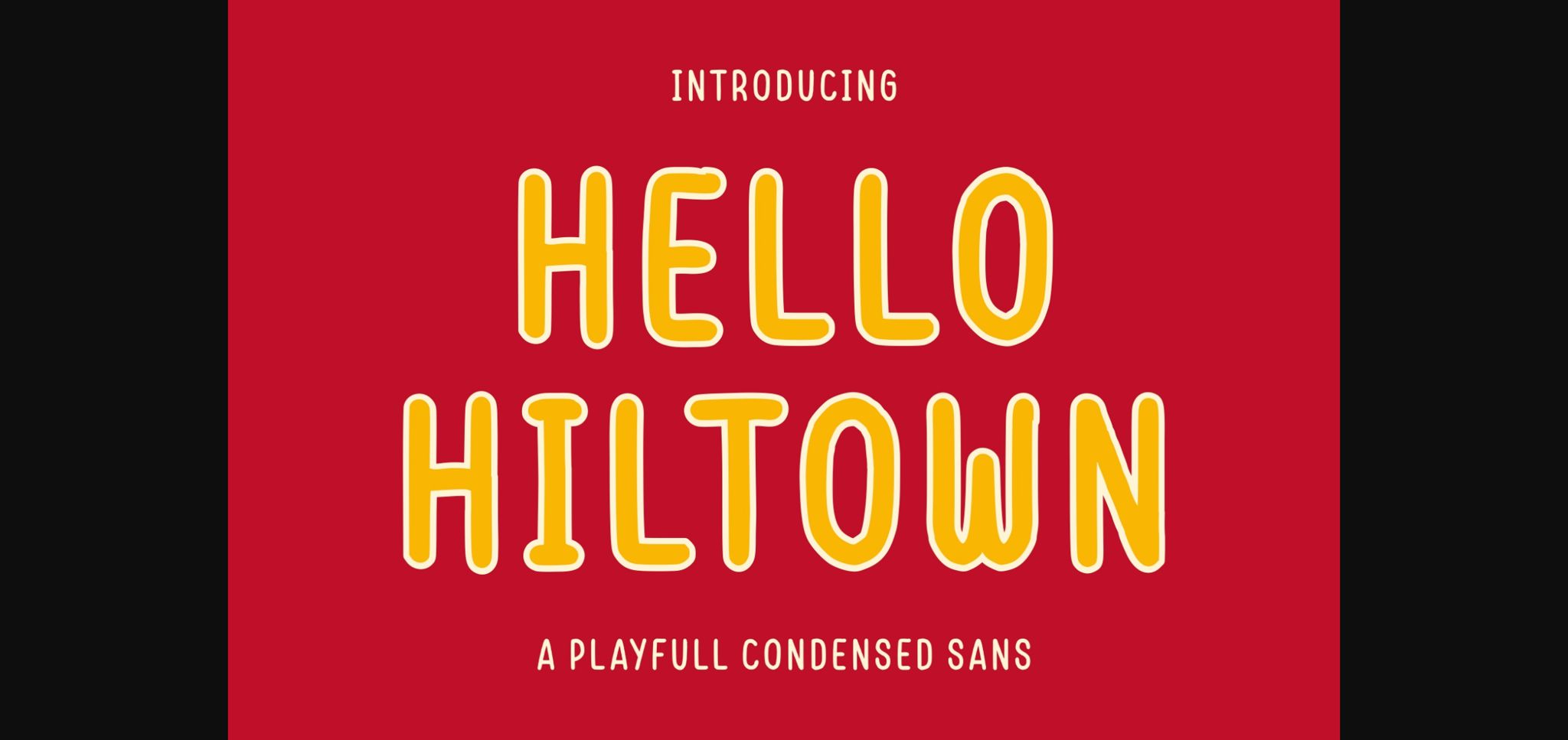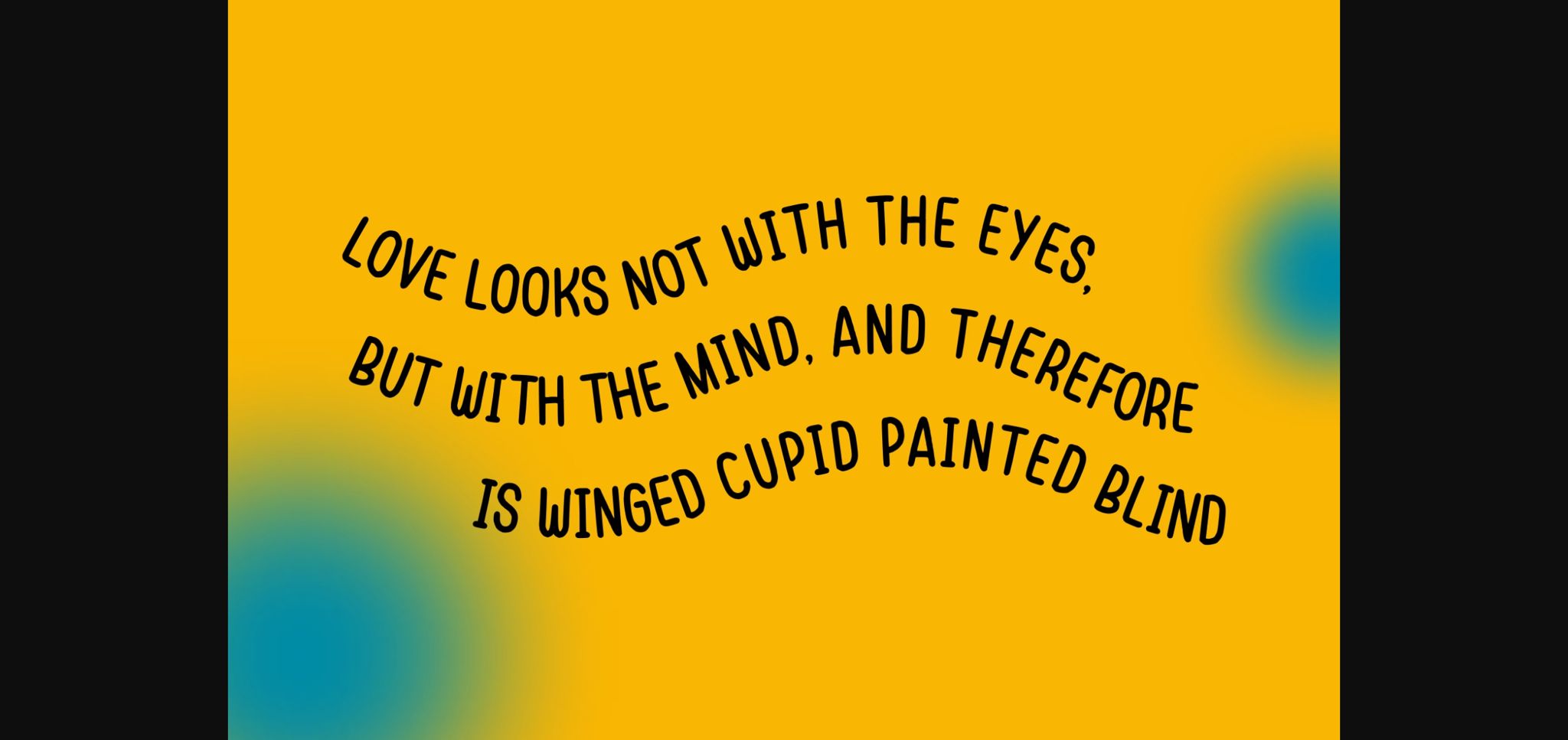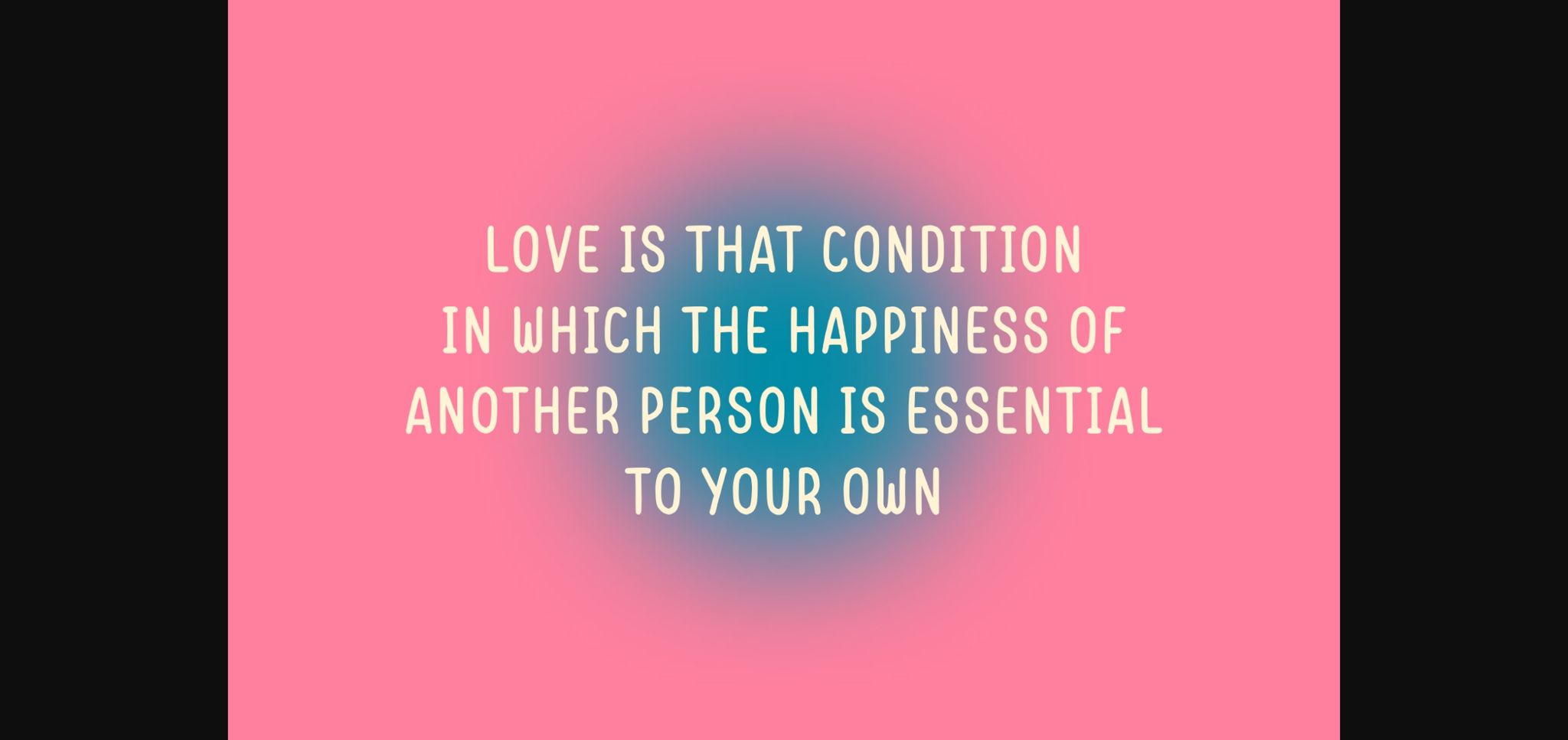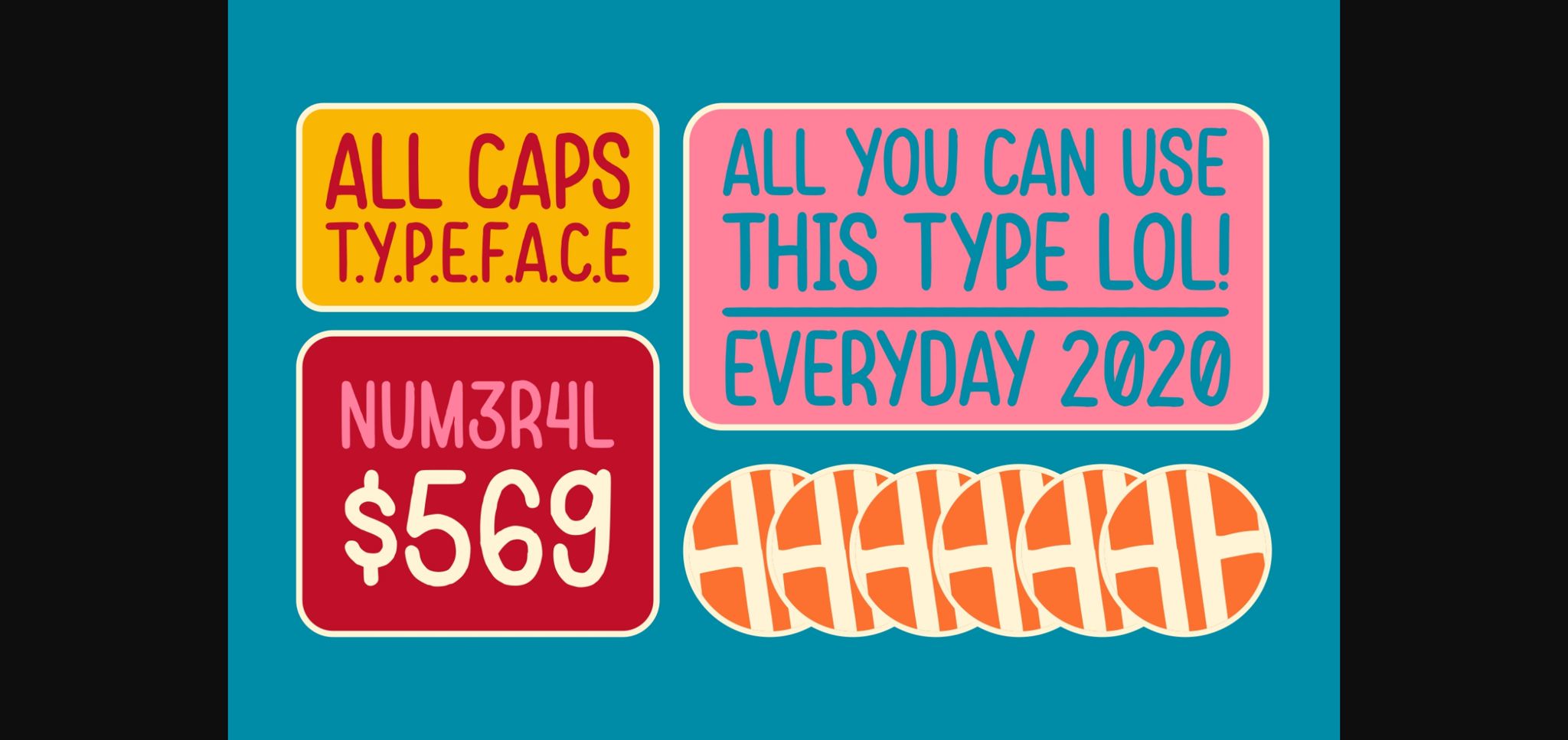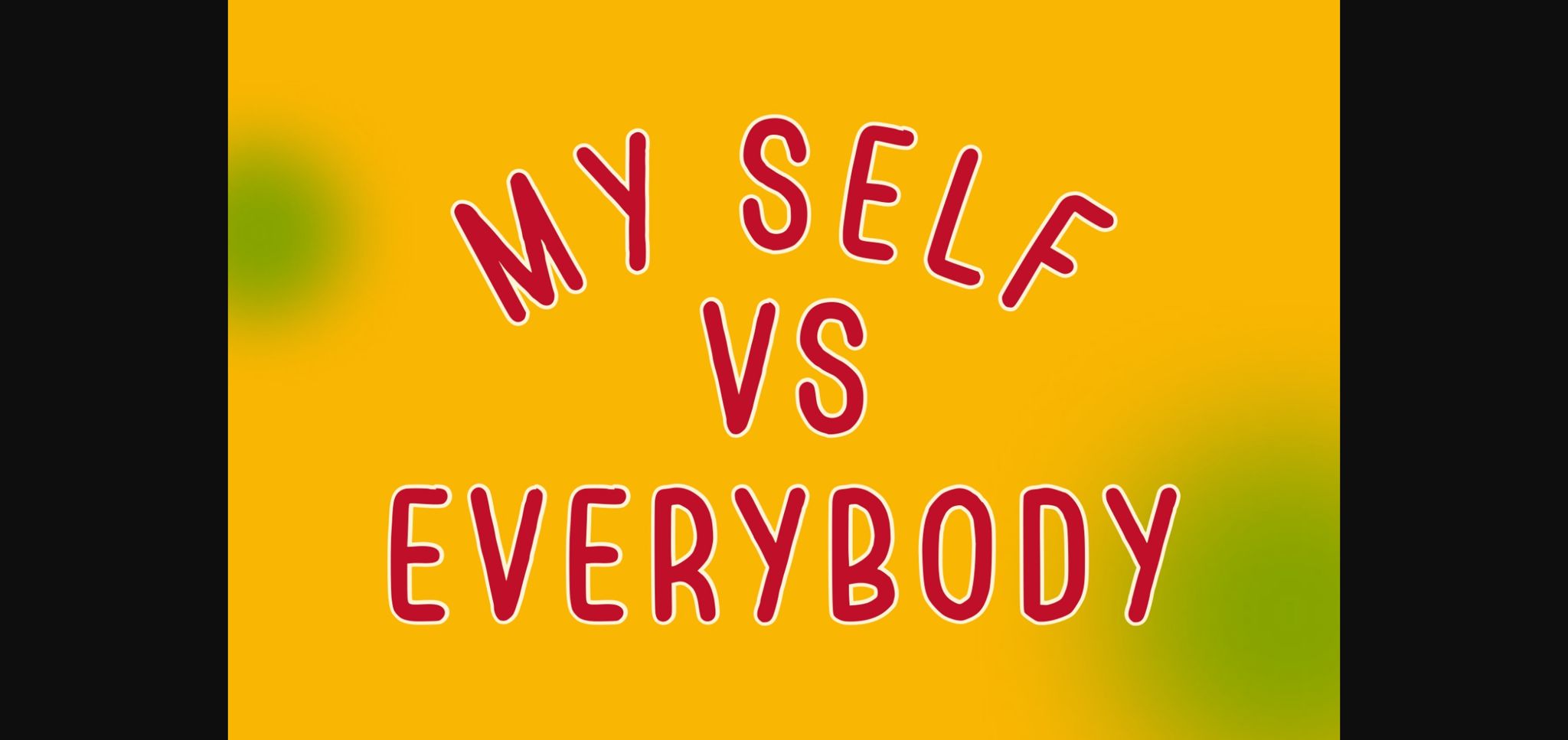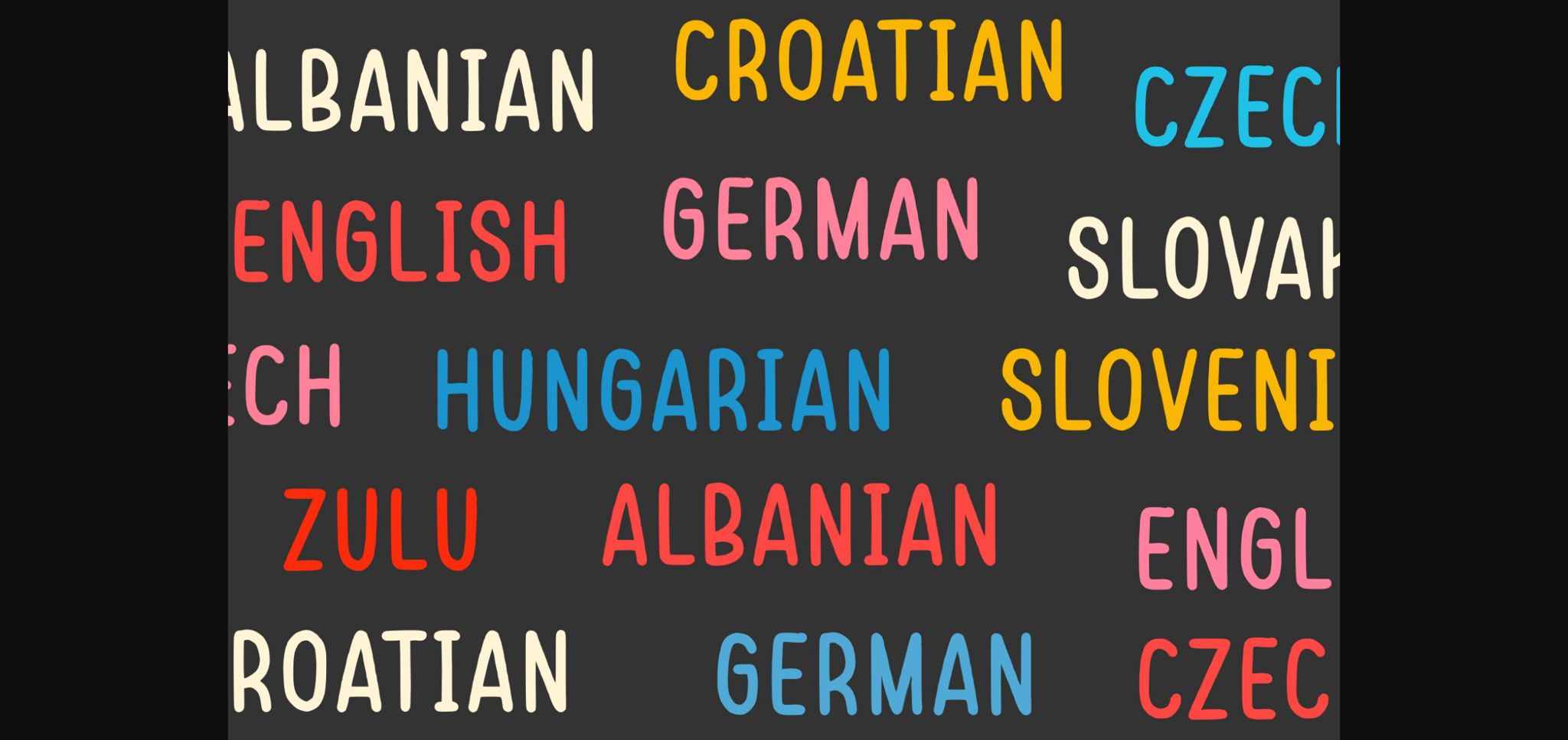
Hello Hiltown Font
About Hello Hiltown Font
Hello Hiltown is a simple and neat sans serif font. It can easily be matched to an incredibly large set of projects, so add it to your creative ideas and notice how it makes them stand out!